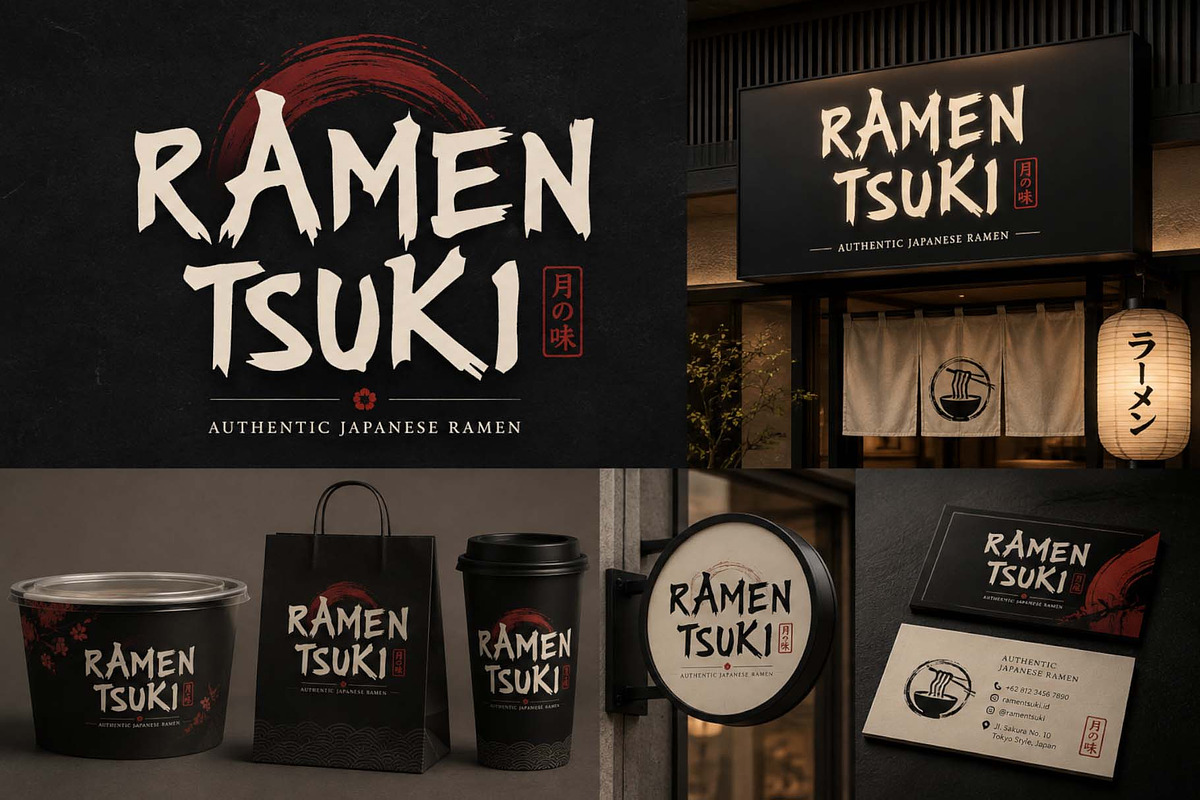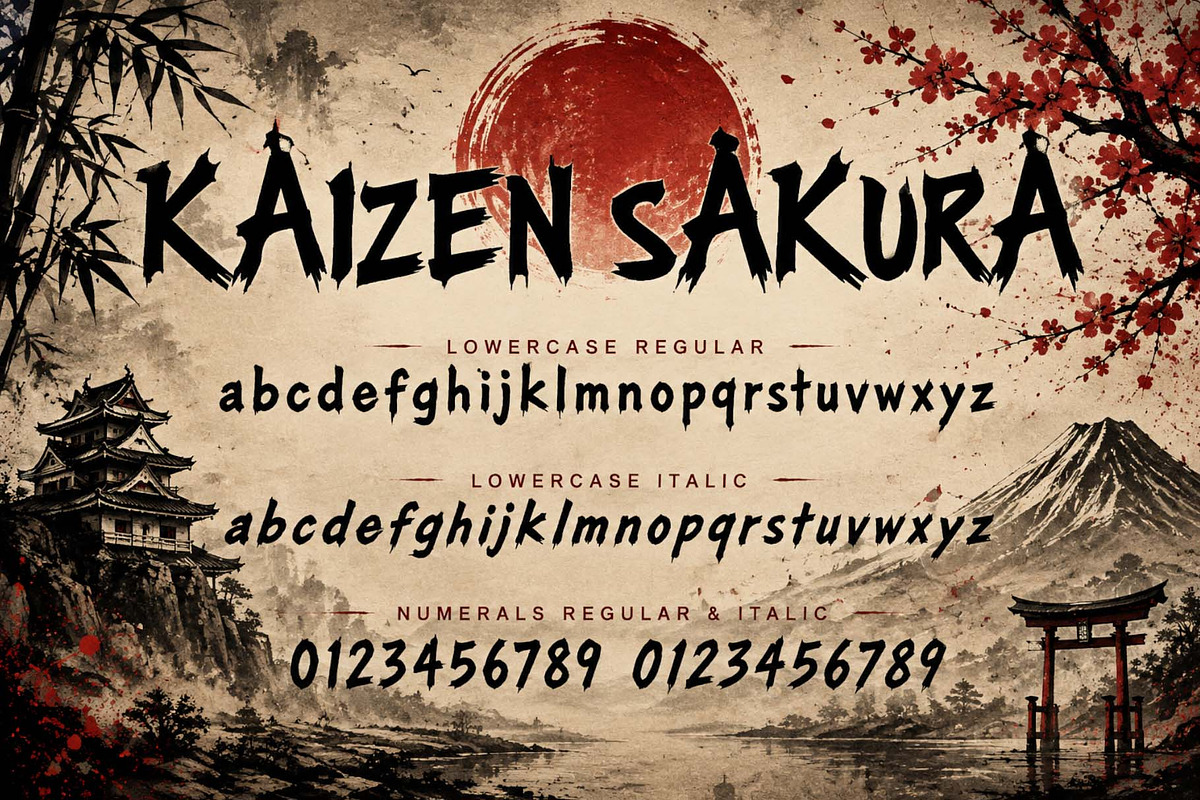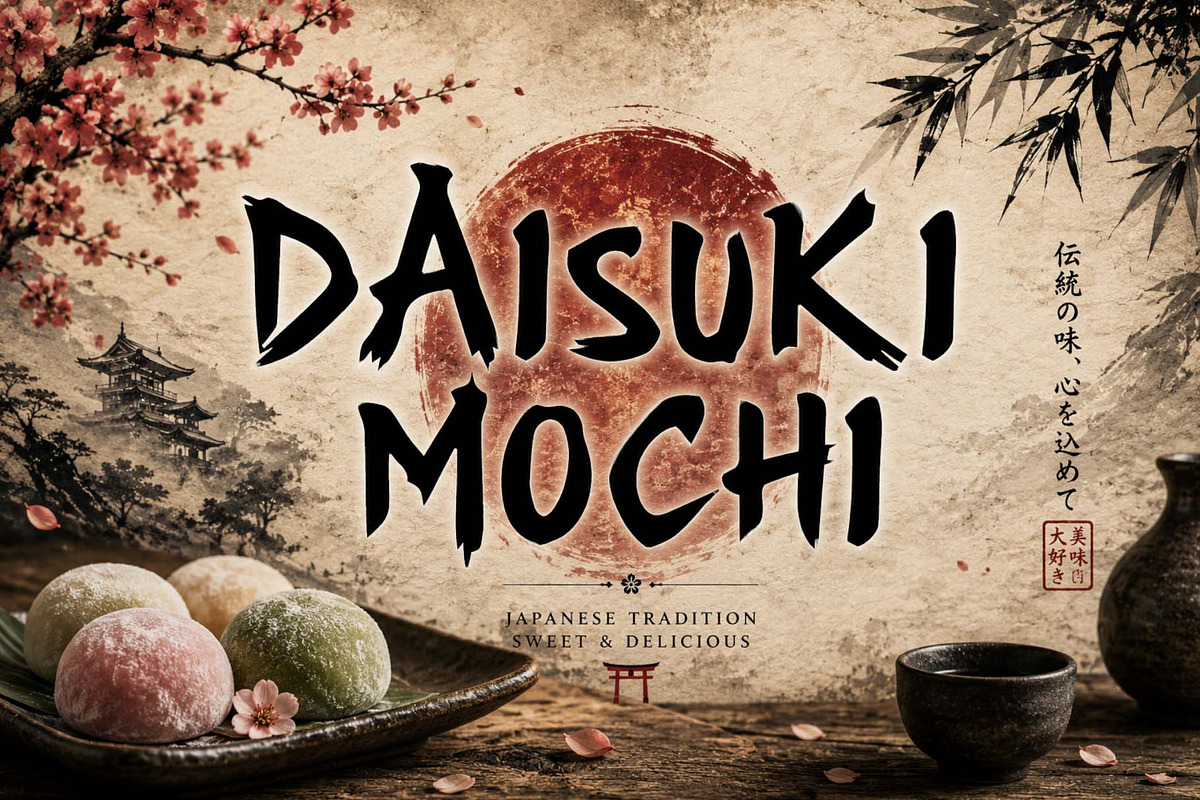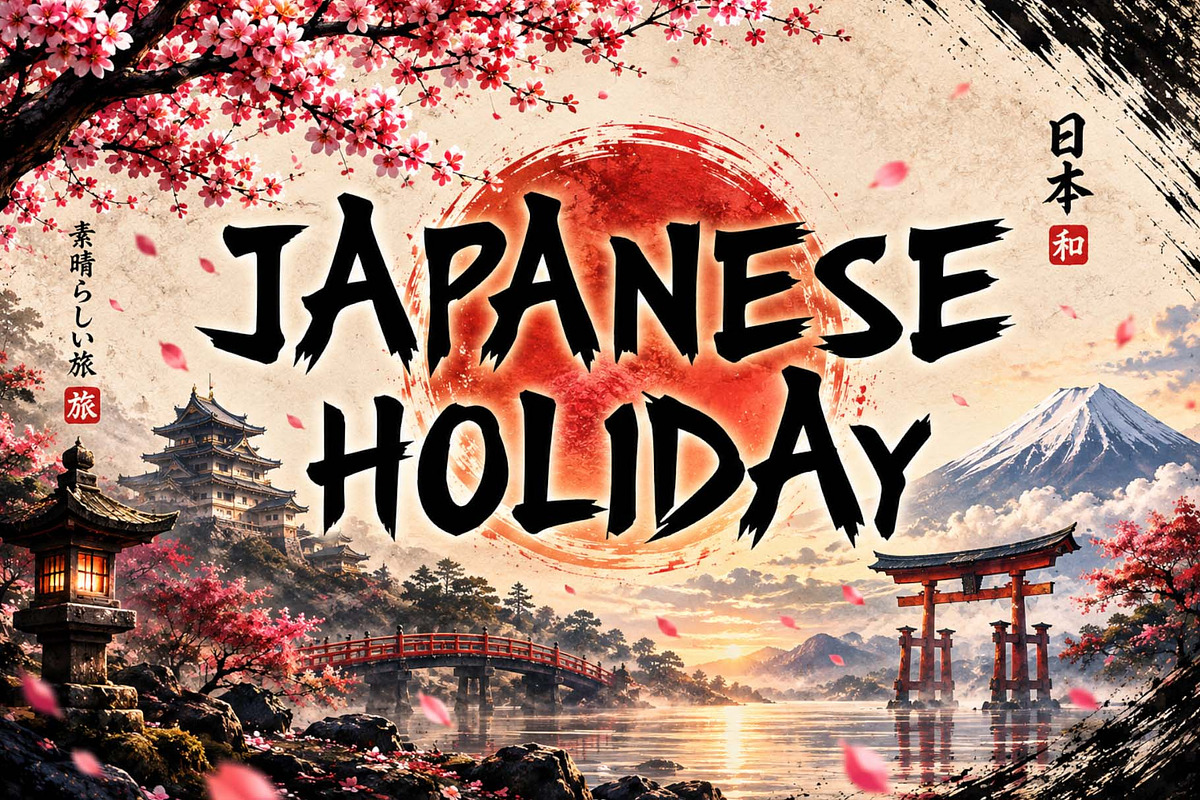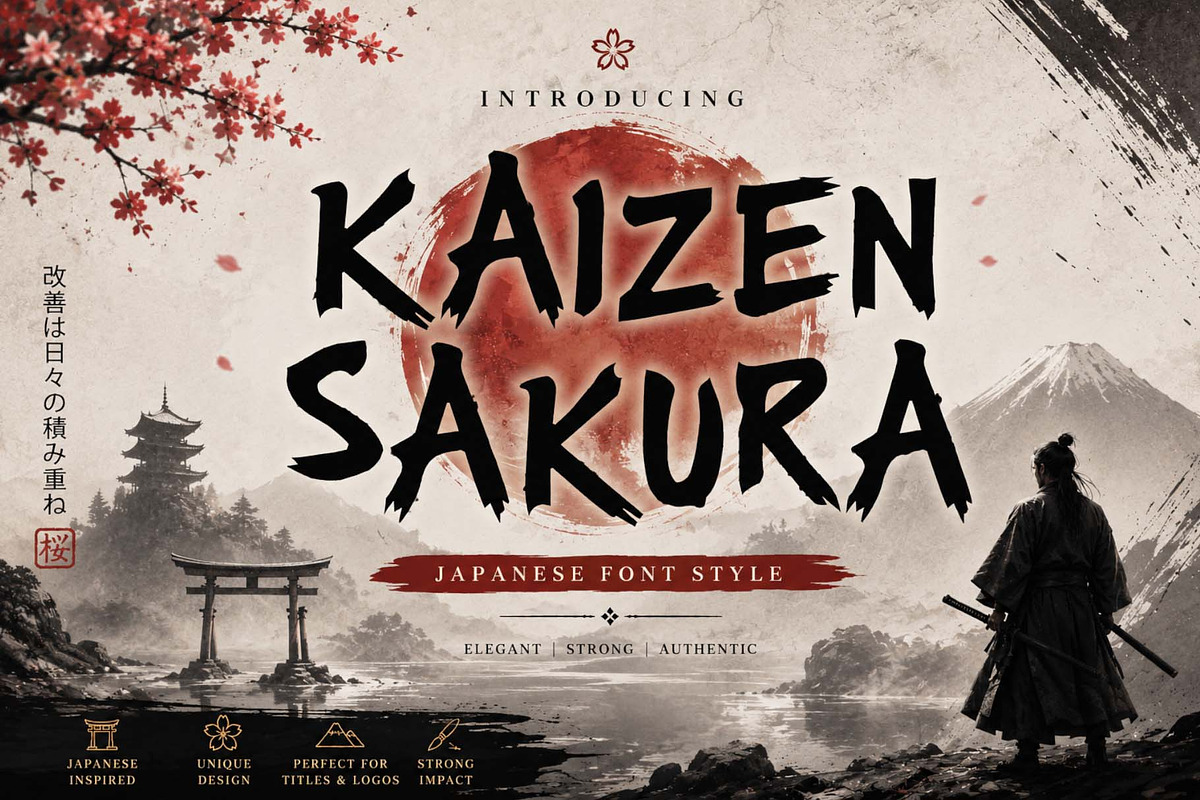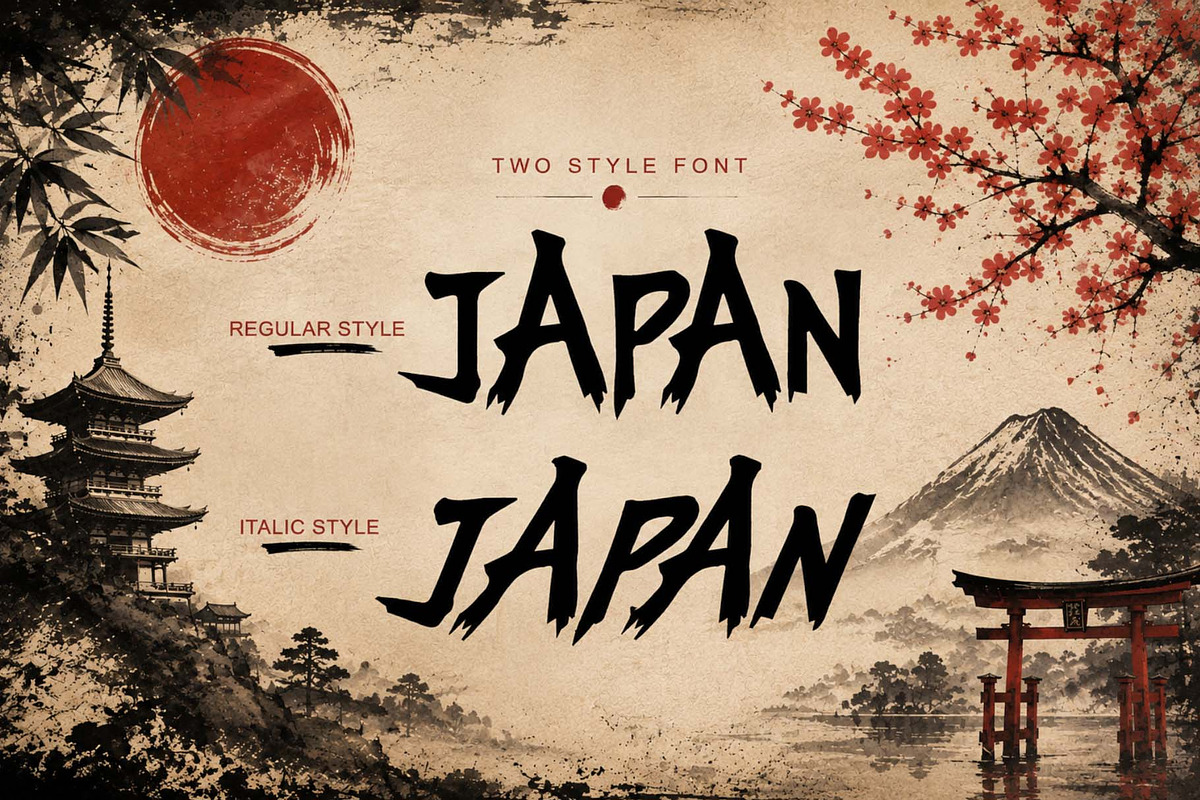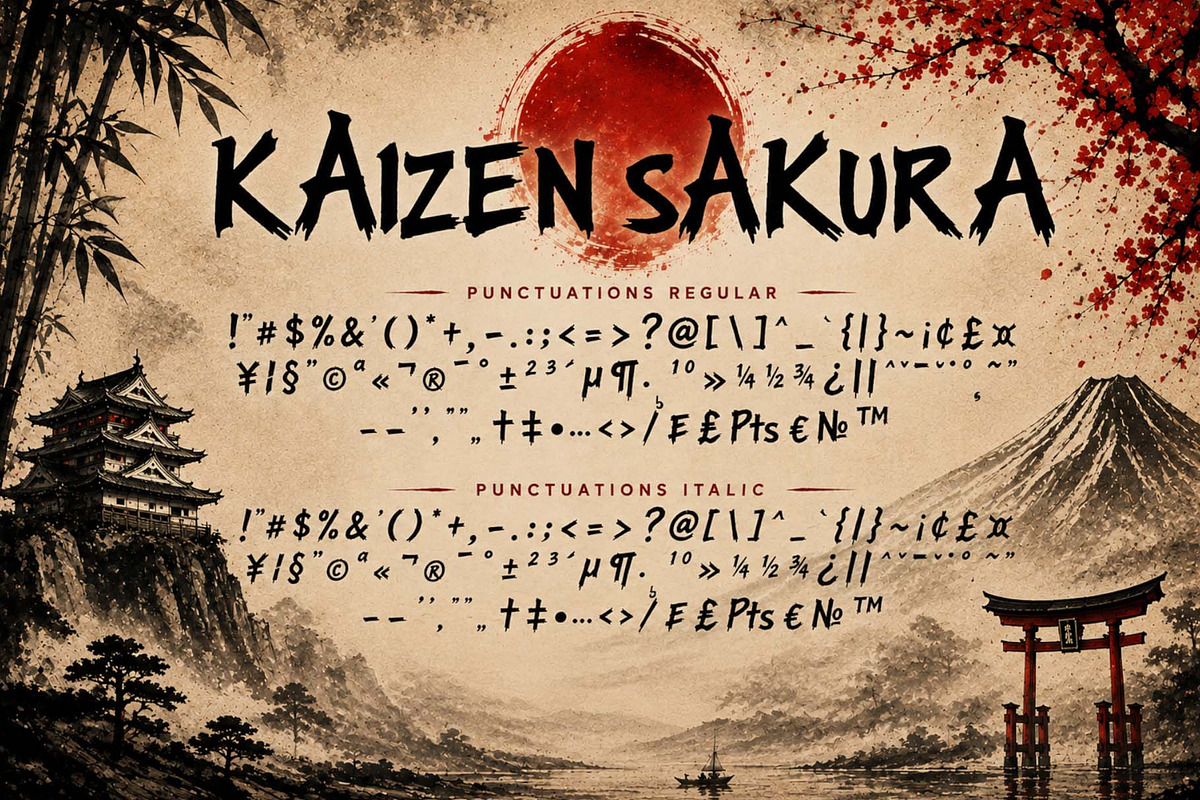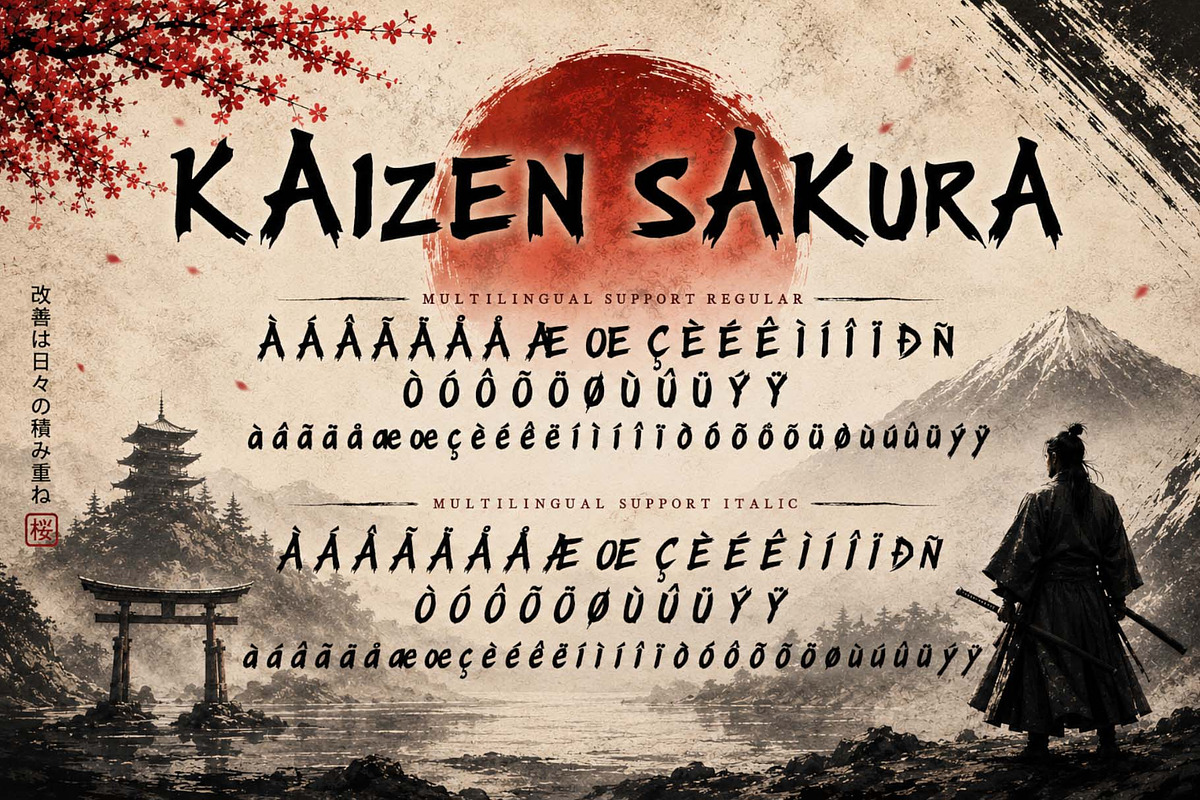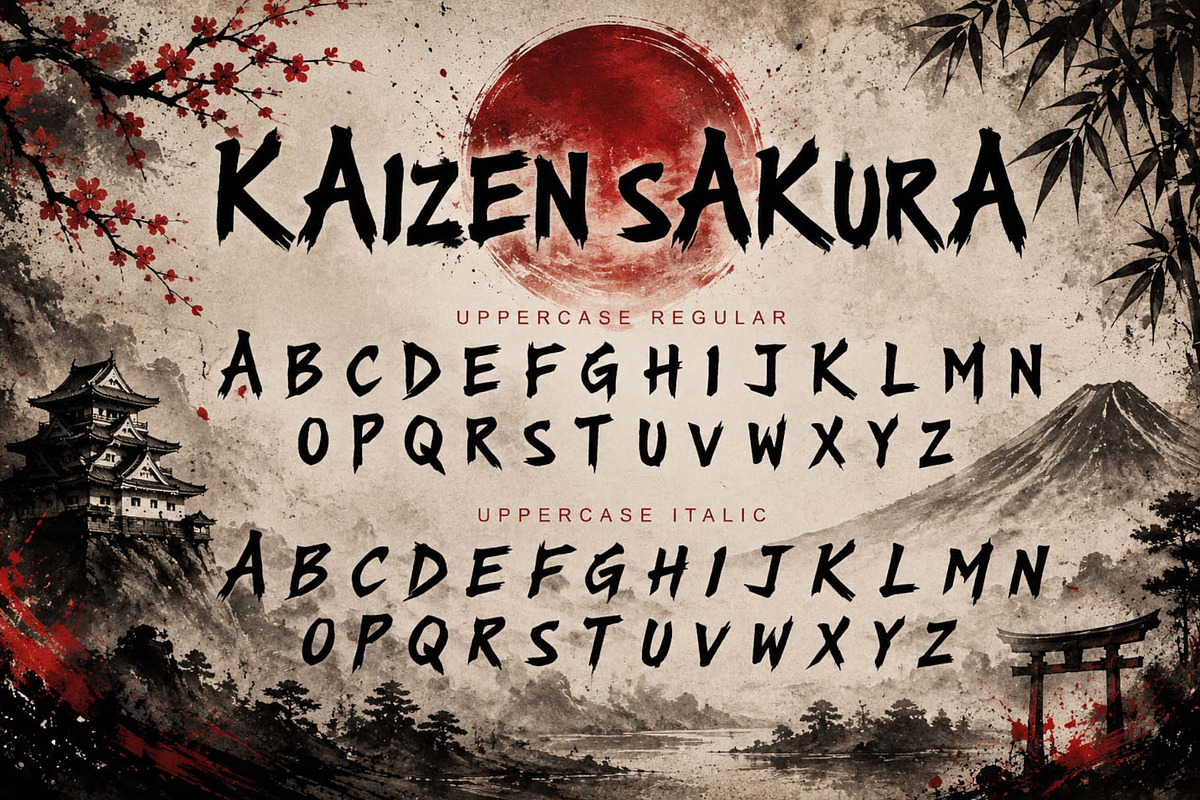
Kaizen Sakura
Kaizen Sakura is a bold, Japanese-inspired display font that blends traditional brushstrokes with a modern style. Its strong, hand-crafted characters create an authentic and powerful visual impact for any project. Perfect for movie titles, logos, posters, branding, packaging, and culturally themed designs. Bring elegance, strength, and a timeless Japanese aesthetic to your creative work.